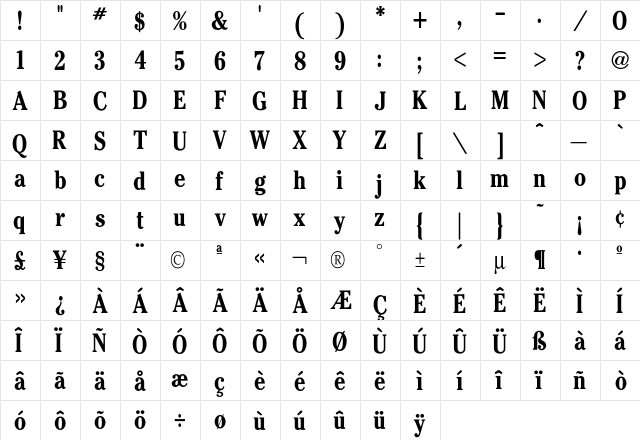
Cheltenham CondBold
Design Context for Cheltenham Typeface
Cheltenham offers clean, dependable letterforms without strong stylistic allegiance, making it a practical choice for designers who need flexibility. The heavy weight commands attention and anchors typographic hierarchies. The condensed width makes it efficient for tight spaces without sacrificing legibility.